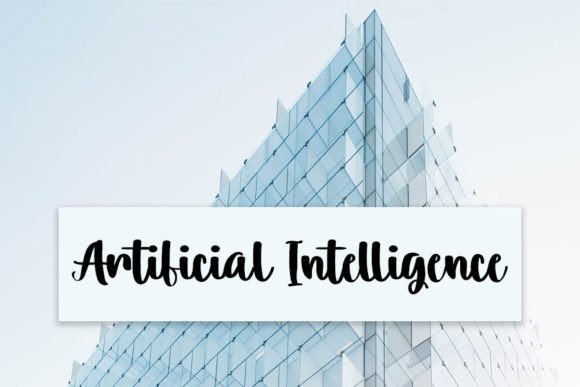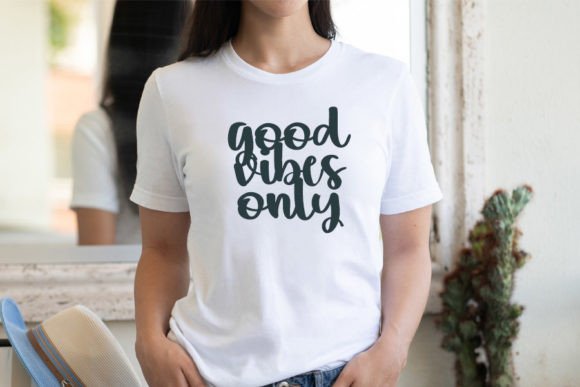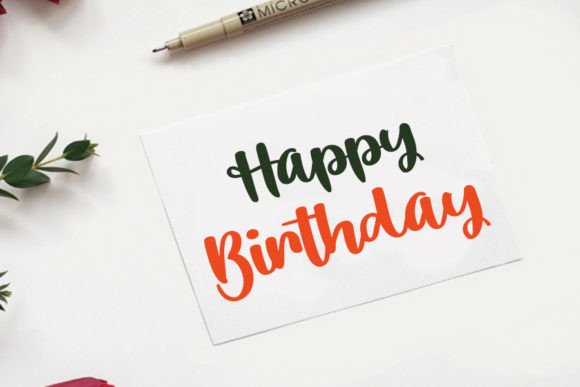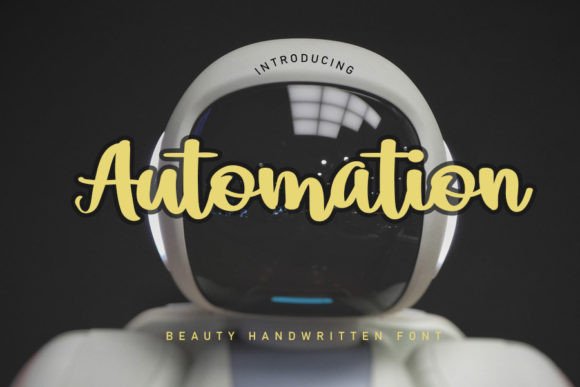
Introducing Automation Font: Elevate Your Creativity with a Unique Handwritten Style
Are you tired of using the same old fonts for your creative projects? Look no further! Automation Font is an incredibly unique handwritten font that is sure to become a true favorite among designers and crafters. Masterfully designed to bring each of your creative ideas to the highest level, this font is the perfect tool to add a personal touch to your work.
What Makes Automation Font Stand Out?
Automation Font boasts a distinctive handwritten style that sets it apart from other fonts. Its unique characteristics make it an excellent choice for a wide range of creative projects, from branding and advertising to crafting and DIY tutorials. With Automation Font, you can add a touch of personality to your work and make it stand out from the crowd.
Key Features of Automation Font
- Unique Handwritten Style: Automation Font features a one-of-a-kind handwritten style that is both elegant and playful.
- Highly Versatile: This font is perfect for a wide range of creative projects, from digital designs to print materials.
- Easily Readable: Despite its unique style, Automation Font is highly legible, making it perfect for use in body text.
How to Use Automation Font in Your Projects
Automation Font is incredibly easy to use and can be incorporated into a wide range of creative projects. Here are just a few ideas to get you started:
- Branding and Advertising: Use Automation Font to create eye-catching logos, business cards, and ad campaigns that stand out from the crowd.
- Crafting and DIY Tutorials: Add a personal touch to your crafting and DIY tutorials with Automation Font, perfect for creating handmade cards, gift tags, and more.
- Digital Designs: Use Automation Font in your digital designs, such as social media graphics, blog posts, and website headers.
Tips and Tricks for Getting the Most Out of Automation Font
To get the most out of Automation Font, here are a few tips and tricks to keep in mind:
- Experiment with Font Sizes: Automation Font looks great in a variety of font sizes, so don’t be afraid to experiment to find the perfect size for your project.
- Pair with Other Fonts: Automation Font pairs well with a range of other fonts, so try combining it with different fonts to create a unique look.
- Use in Combination with Images: Automation Font looks great when used in combination with images, so try incorporating it into your designs to add an extra layer of depth.
In conclusion, Automation Font is an incredibly unique and versatile handwritten font that is sure to become a favorite among designers and crafters. With its distinctive style, high legibility, and ease of use, this font is perfect for a wide range of creative projects. Whether you’re looking to add a personal touch to your branding and advertising or create eye-catching digital designs, Automation Font is the perfect tool for the job.